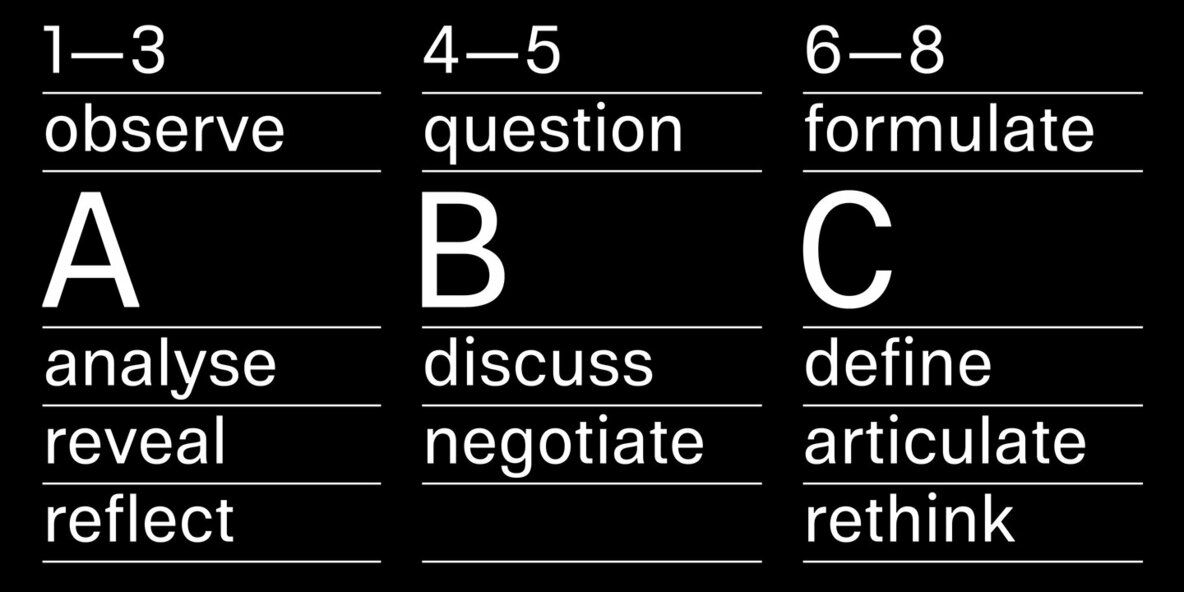
Referenz Grotesk Font
Made in Germany, Referenz Grotesk is a typeface full of references referring to the type design history of Stuttgart State Academy of Art and Design. Its typographic history holds a broad spectrum of shapes and characters, including F.H. Ernst Schneidler (1882–1956), Imre Reiner (1900–1987), Walter Brudi (1907–1987), Kurt Weidemann (1922–2011) and Frank Heine (1964–2003).
During extensive research phases, designs, and facts of the above mentioned were collected and analyzed. This led to the academy’s collection and archive, where the majority of Weidemann’s estate is housed next to works of other designers and professors like F.H. Ernst Schneidler and Walter Brudi. Another place of research was the typesetting workshop where Schneidler had previously taught and worked. Some of his freshly cast fonts were tested and used there for the first time and are still stored in several of the letter cases. Regarding the more recent history, for instance, about the Emigre designer Frank Heine, former colleagues and professors have been consulted.
These studies resulted in the new font Referenz Grotesk that includes traces of Kurt Weidemann’s ‘Corporate’ as well as calligraphic hints that link to Schneidler’s ‘Stuttgarter Schule’ (Stuttgart School) where writing played an important role during the form-finding process. For the regular text fonts, these features are integrated in a subtle manner, whereas several alternative glyphs pick up more expressive forms.
The final sans serif type family has a clarity and contemporary straightness that becomes more characteristic in its heavier weights. Additionally, more than 60 alternative glyphs per weight allow for individual combinations that can be tailored specifically for each application and context. They open up a broad range of visual expressions, from subtle characteristics to playful and eccentric.